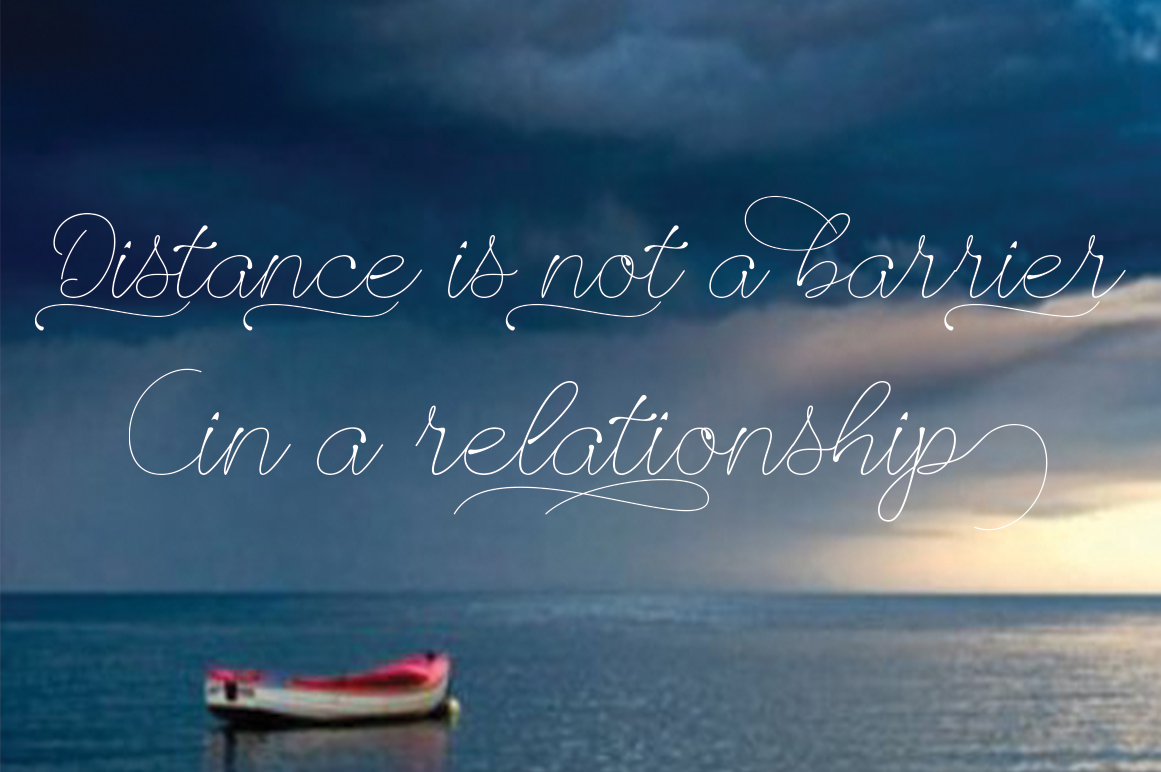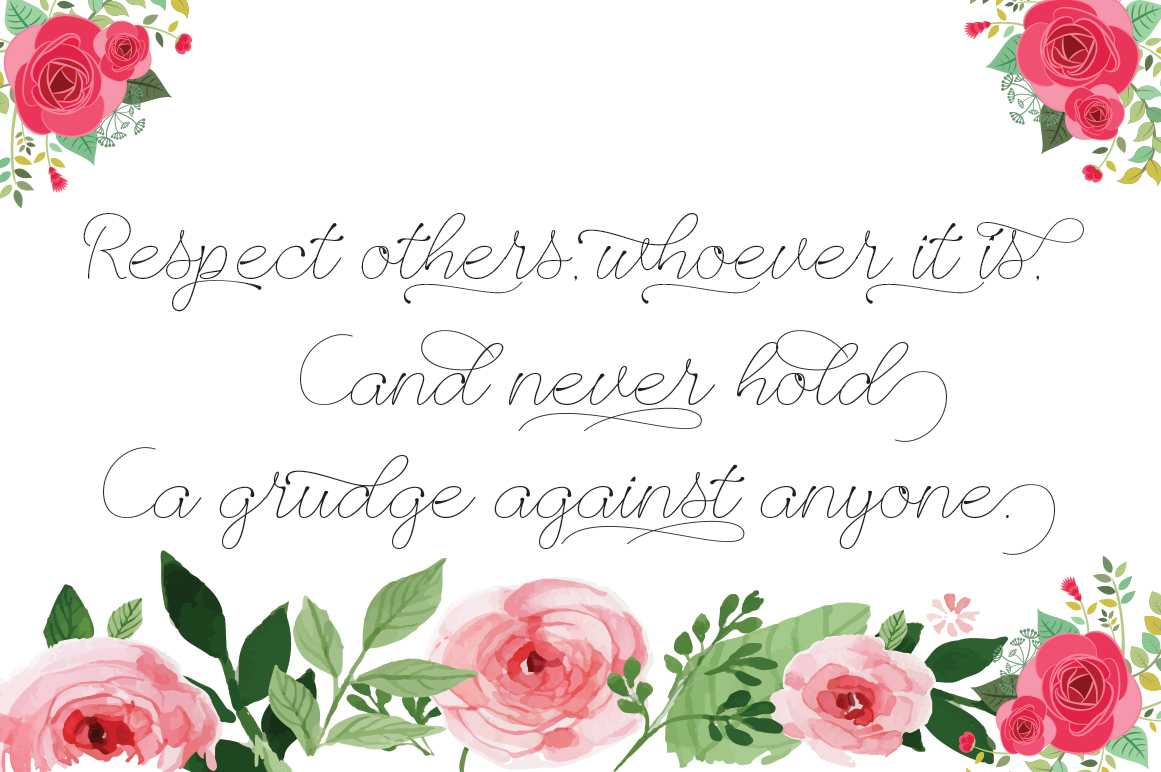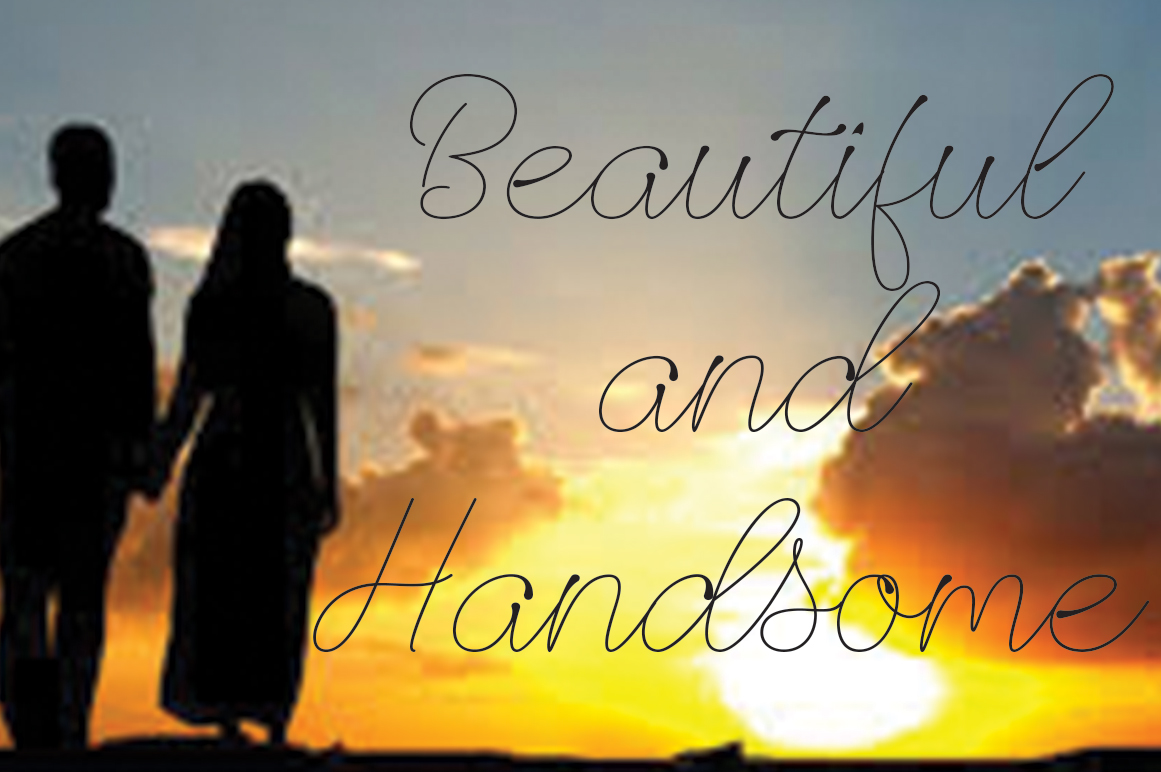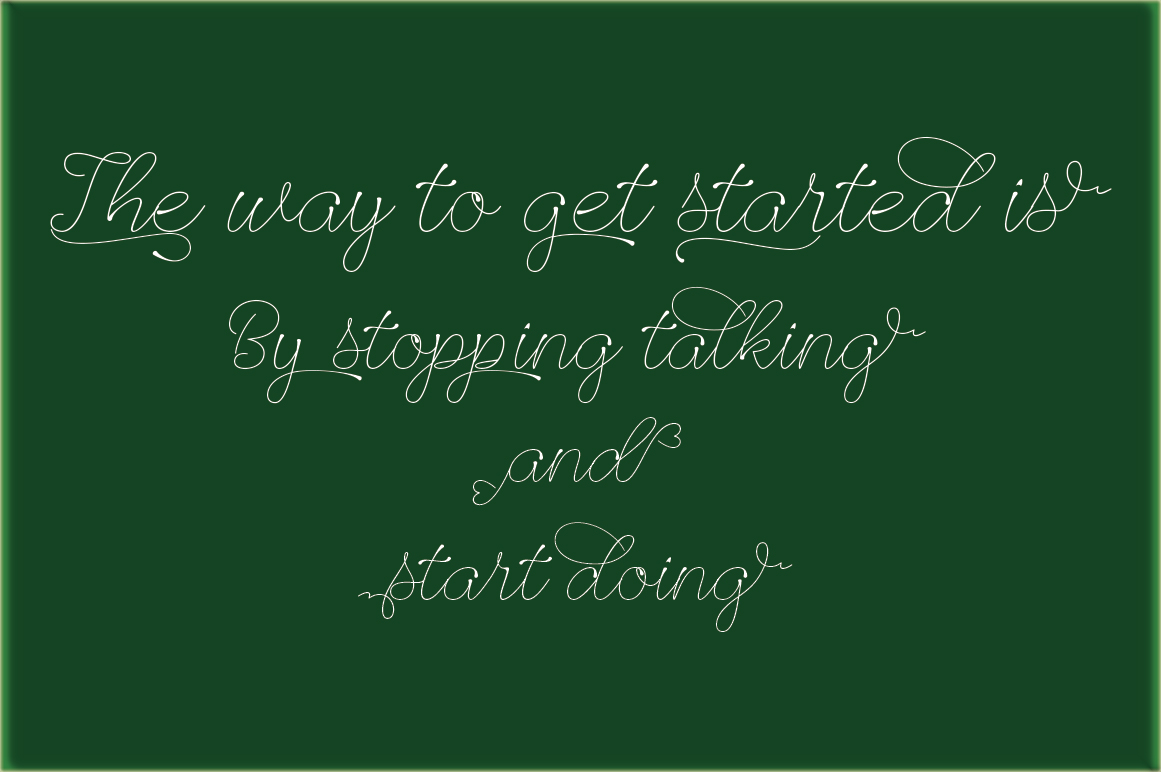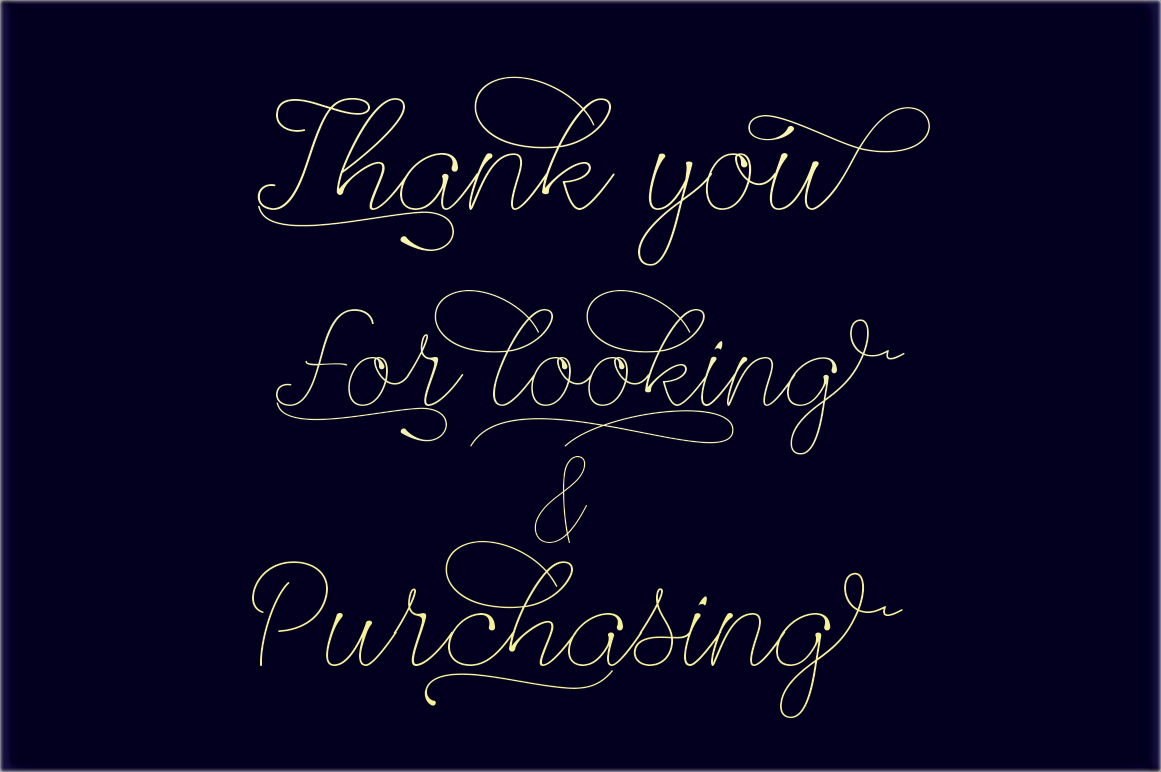
The Almahira Font: A Handwritten Gem for Creative Projects
I’ll never forget the time I was working on a branding project for a cozy coffee shop. I had spent hours perfecting the logo design, but something felt off. The font I was using just didn’t capture the warm, inviting vibe of the shop. That’s when I stumbled upon the Almahira font, created by Naqsya.Co. It was like a breath of fresh air – handwritten, yet polished, with a unique charm that instantly elevated my design.
An Honest Review of Almahira Font
- 💫 Unique, handwritten aesthetic with a touch of elegance
- ✅ Extensive character set, including support for multiple languages
- 🎨 Beautifully crafted with attention to detail, making it perfect for creative projects
- 🤝 Highly versatile, suitable for a wide range of design applications, from branding to invitations
- ⚠️ Some users may find the font a bit too ornate for very casual or minimalist designs
- 🤔 Limited availability of certain OpenType features in certain software
- Experiment with the font’s OpenType features, such as stylistic alternates, to add visual interest
- Exploring the available glyphs, ligatures, and stylistic alternates to customize your text
The Story Behind Almahira Font
According to Naqsya.Co., the Almahira font was inspired by the beauty of handwritten letters and the need for a unique, creative font for designers. The creator aimed to craft a font that would be both elegant and approachable, suitable for a wide range of design applications.
| What type of projects is Almahira font best suited for? | Almahira font is versatile and can be used for various creative projects, such as branding, invitations, packaging, and more. |
| Is Almahira font suitable for body text? | While Almahira font is beautiful, it’s best used for headlines, titles, or short paragraphs. For longer body text, a more traditional font might be more readable. |
| Does Almahira font support multiple languages? | Yes, Almahira font has an extensive character set, including support for multiple languages. |